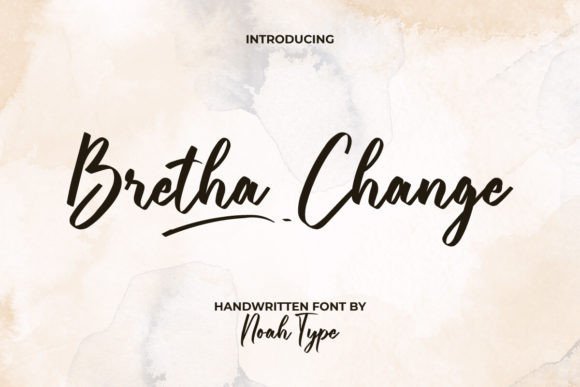
The Perfect Brush Stroke: Introducing Bretha Change Font
Have you ever stared at a blank canvas, searching for the perfect font to bring your design to life? The thrill of creating something new and captivating is exhilarating, and it’s in these moments that the right font can make all the difference. For designers, the quest for the perfect font is an ongoing journey, and today, we’re excited to introduce a gem that will elevate your designs to new heights – the Bretha Change Font.
This classy, elegant brush handwriting font, designed by NoahType, is a masterclass in sophistication. With its beautiful, flowing strokes, it’s the perfect addition to any design, from accessories to publishing, and everything in between. Whether you’re a seasoned designer or just starting out, Bretha Change Font is a valuable addition to your toolkit, guaranteed to grab anyone’s attention and leave a lasting impression.
Bretha Change Font Review
Overall, I was excited to dive into “Bretha Change Font” and see what it had to offer. As a designer, I’m always on the lookout for fresh and unique fonts to add some personality to my projects.
- Unique, modern aesthetic: Bretha Change Font has a distinct style that sets it apart from more traditional fonts.
- Excellent for digital use: The font is optimized for digital displays, making it a great choice for websites, apps, and other digital projects.
- Good legibility: Despite its unique style, Bretha Change Font is still easy to read, even at smaller font sizes.
- Limited character set: The font only includes a basic set of characters, which may limit its use in certain projects.
- Not ideal for print use: While Bretha Change Font looks great on screens, it may not be the best choice for print materials due to its digital optimization.
Overall, I think Bretha Change Font is a great addition to any designer’s toolkit, especially for digital projects. However, its limitations may make it less suitable for certain types of projects.